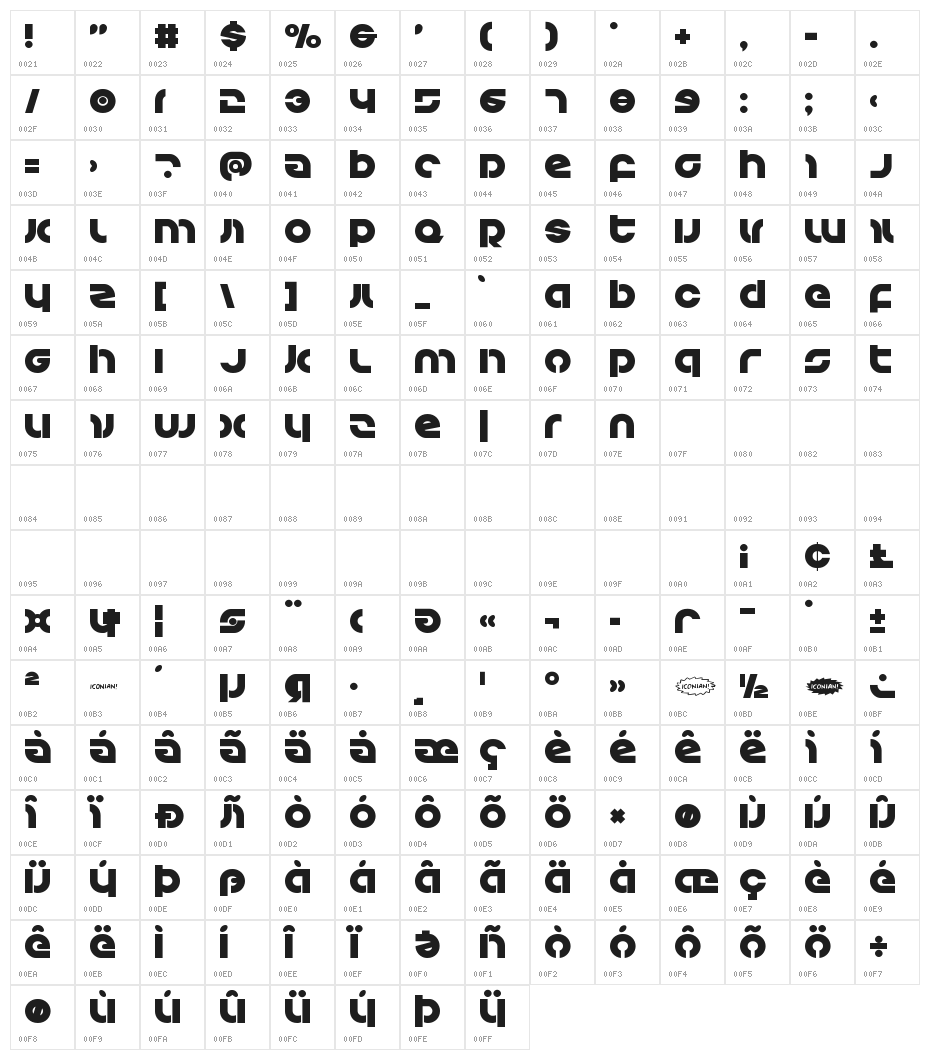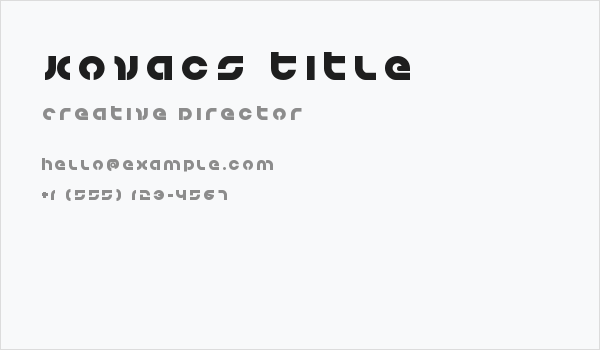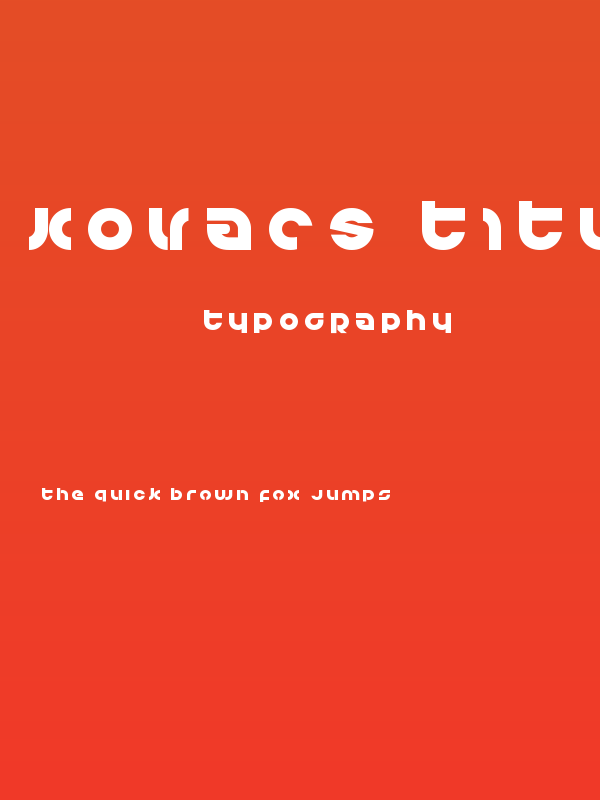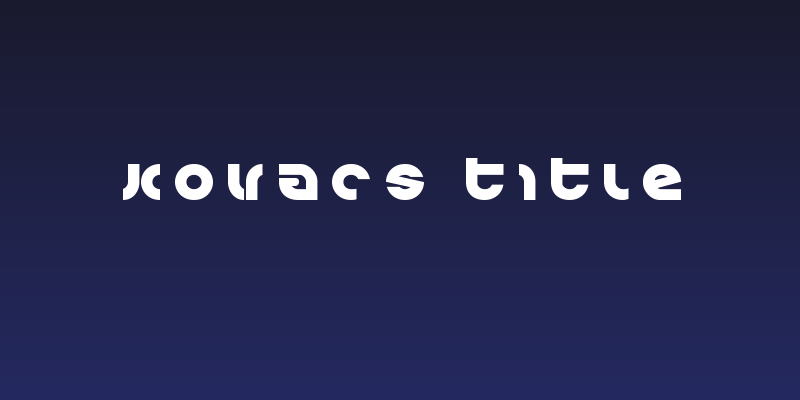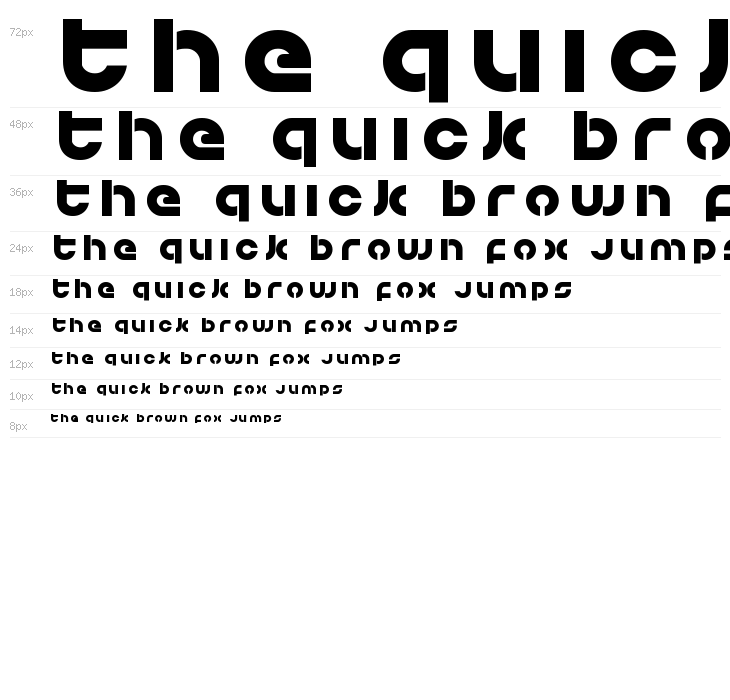
Kovacs Title Font
Kovacs Title Description
This font features a bold and geometric design with a modern and futuristic aesthetic. The characters are constructed with strong, solid lines and unique, angular shapes that create a sense of movement and dynamism. The uppercase and lowercase letters share a consistent style, with rounded edges and a uniform thickness that adds to the cohesive look. The numbers and special characters are equally bold, maintaining the same geometric style. This font's distinctive appearance makes it ideal for projects that require a contemporary and eye-catching typeface.
| Proposed Projects | Ideal for branding, headlines, posters, and digital media that require a striking and modern typeface. |